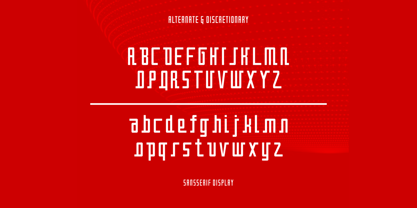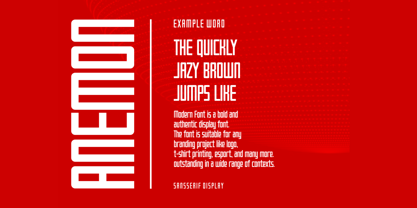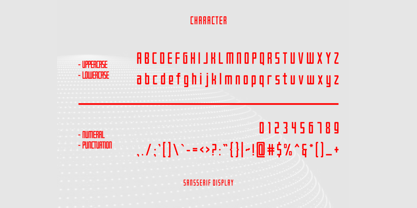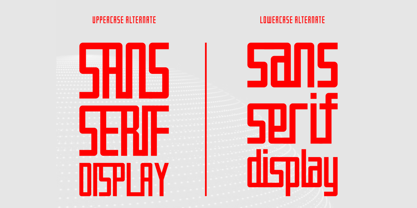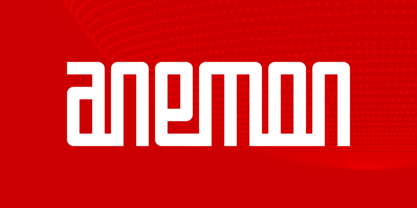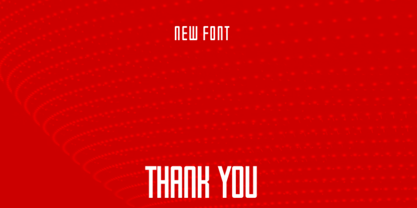
Amonm
by Hasnat Studio
The Amonm Font Family was designed by Hasnat Khan and published by Hasnat Studio. Amonm contains 1 styles. More about this family
Amonm is a bold and authentic modern display font designed to make a powerful statement. Perfectly suited for a wide variety of branding projects, including logos, esports titles, merchandise, and digital media, Amonm delivers outstanding impact and versatility across diverse creative contexts.
With its sharp, clean letterforms and a full set of uppercase, lowercase, and alternate characters, Amonm provides designers with the tools to craft distinctive, memorable typography that stands out both in print and on screen.
✿ Key Features:
• Bold Modern Display Style: Eye-catching and perfect for high-impact visual branding
• Complete Uppercase & Lowercase Letters: Flexible for various design needs
• Stylish Alternate Characters: Customize your typography with unique letter variations
• Strong Readability: Crisp and clear for both digital and print applications
• Versatile Usage: Ideal for esports, branding, headlines, social media, and more
✿ Perfect For:
• Logo & Brand Identity Design
• Esports & Gaming Graphics
• Posters & Promotional Materials
• Social Media Visuals & Headlines
• Product Packaging & Merchandising
Create bold and authentic designs with Amonm—a modern display font made for impactful branding and creative expression.